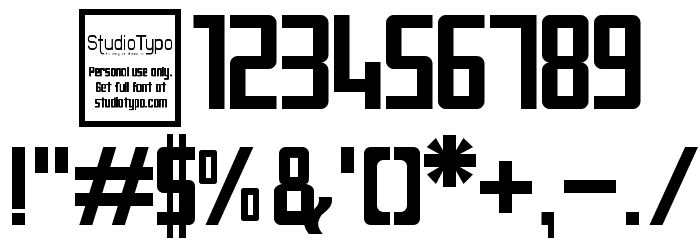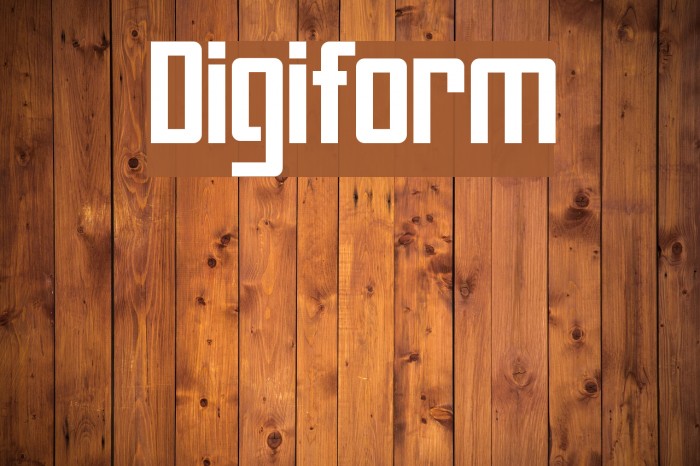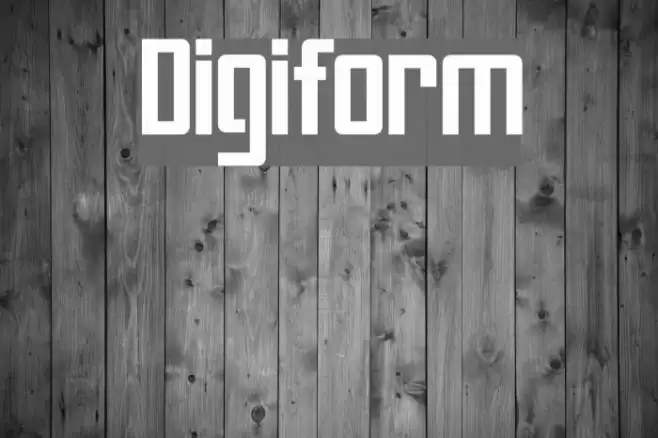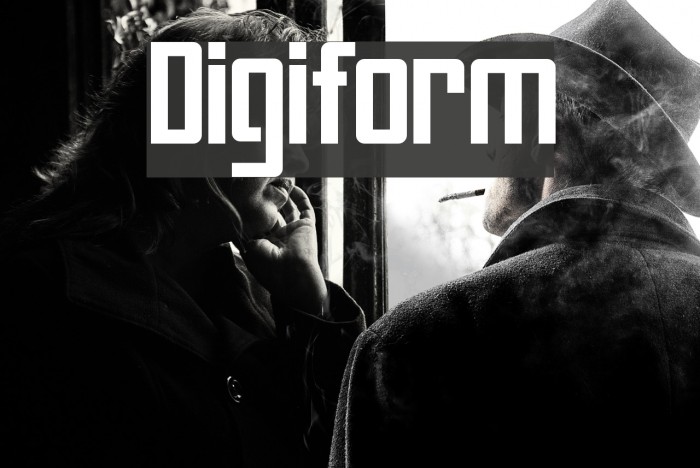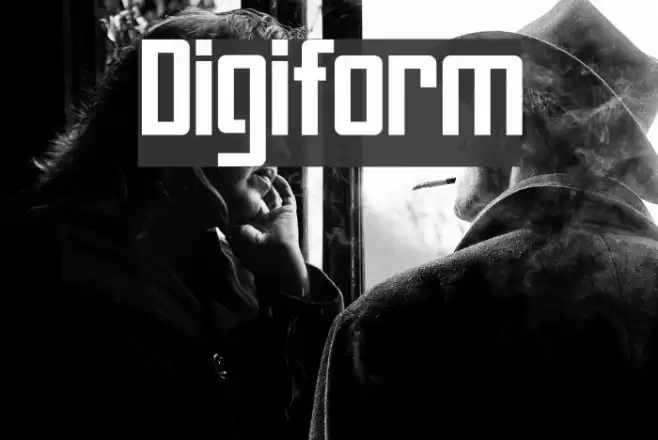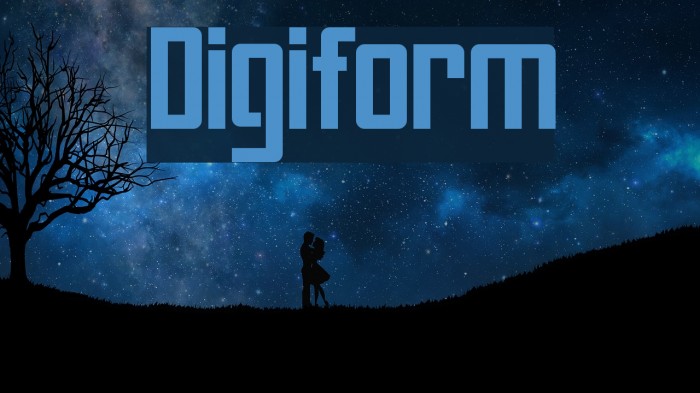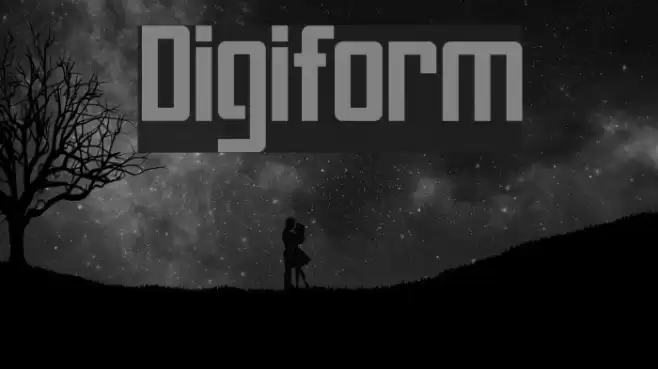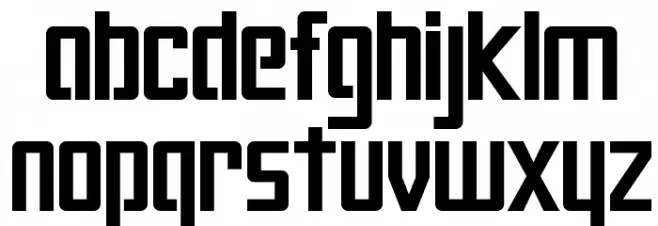
Digiform Description
This font features a bold, geometric design with a modern and futuristic aesthetic. The characters are constructed with straight lines and sharp angles, creating a sense of precision and clarity. The uppercase and lowercase letters maintain a consistent height, contributing to a uniform appearance. The numerals are equally bold and align well with the overall style, making them highly legible. Special characters are designed to match the font's strong geometric theme, ensuring cohesion across all elements. This font is ideal for projects that require a contemporary and tech-savvy look.
| Use Case | Headlines, Logos, Digital Interfaces |
| Proposed Projects | Ideal for technology branding, digital interfaces, video game titles, and modern advertising. |